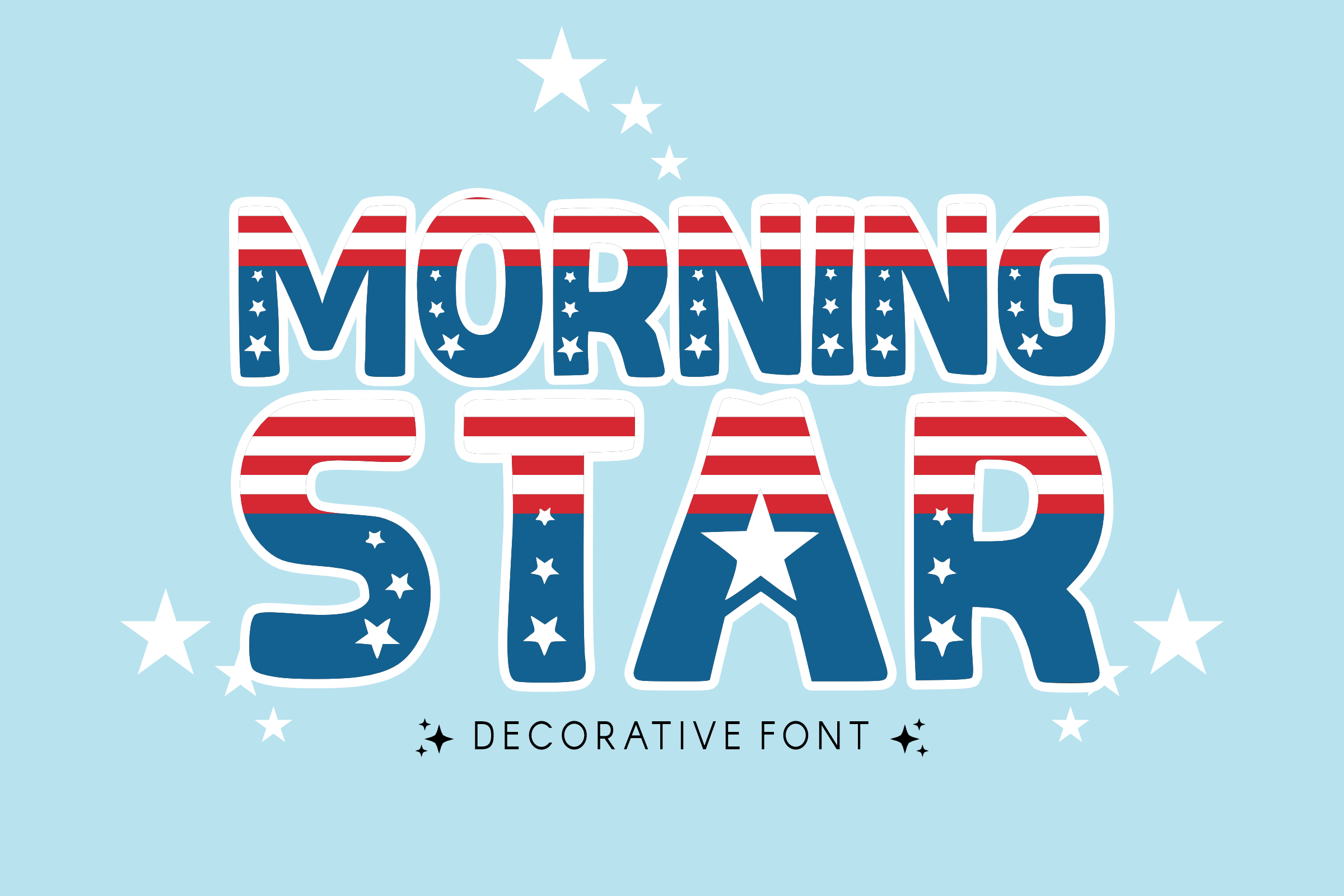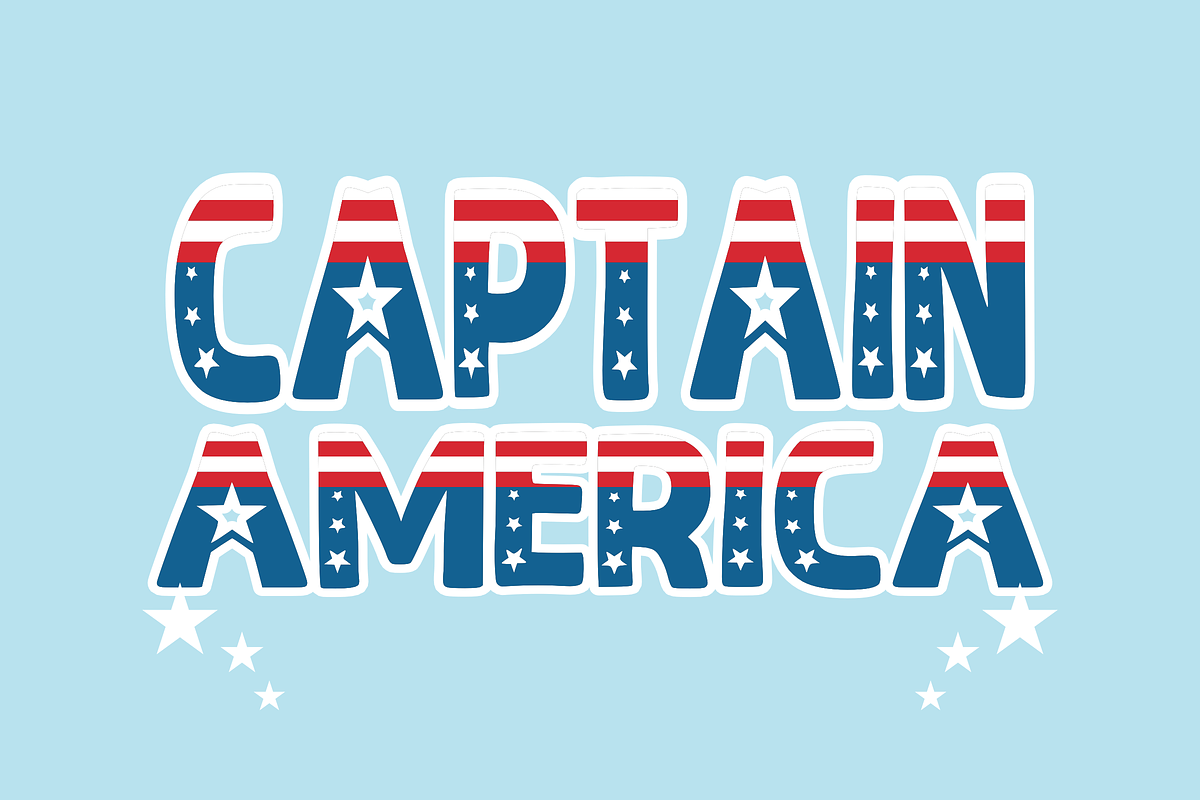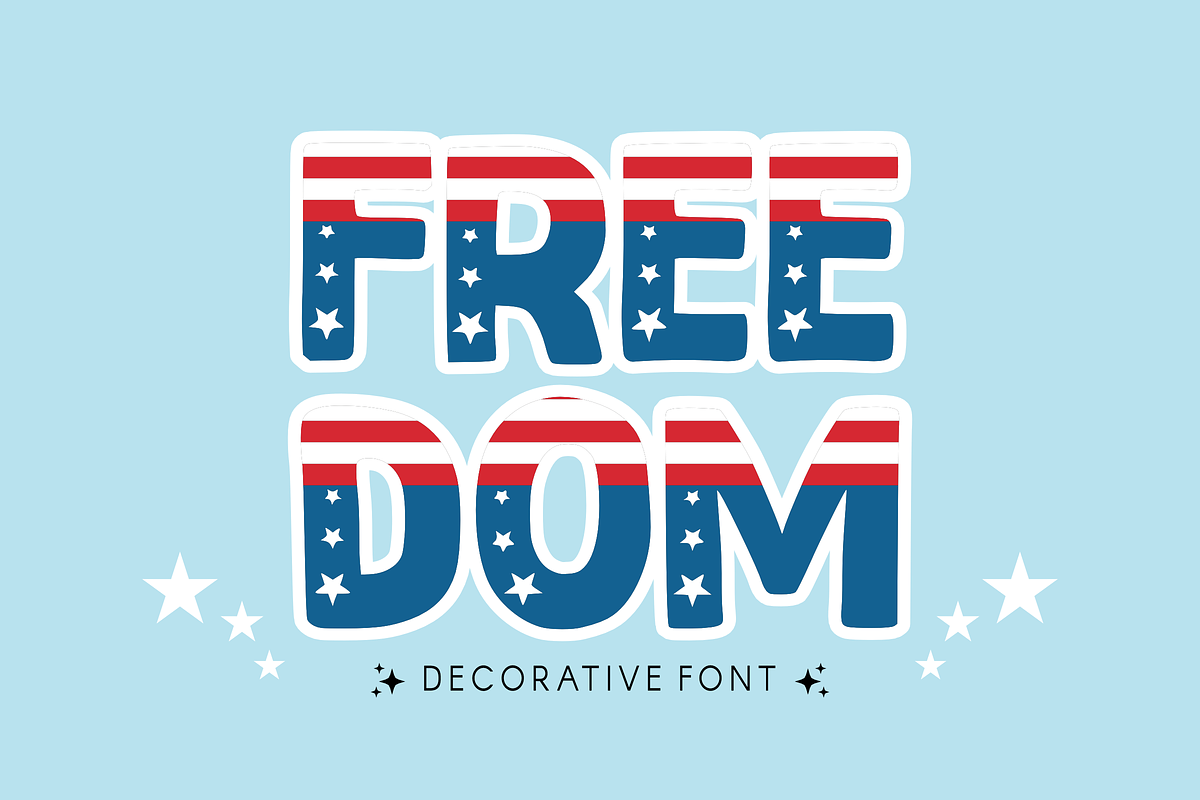
Morning Star - Display Font
⭐ Morning Star - Magical Dotted Display Font ✨ Brighten up your day with Morning Star! This enchanting display font features bold, rounded characters filled with a delightful "twinkling" polka-dot pattern. Designed with a clean "sticker-style" outline and a bouncy personality, it perfectly captures a whimsical, magical vibe that is both friendly and eye-catching.
Whether you're designing for a starry-eyed nursery or a fun school project, Morning Star adds a touch of sparkle to every word!
🌟 Key Features: ✨ Dotted Uppercase: Chunky, bouncy letters with a unique star-like texture.
🔢 Numbers 0-9: Matching patterned numerals for dates and ages.
🎈 Simple Symbols: Essential punctuation to complete your magical designs.
✂️ Sticker Ready: Smooth, high-quality outlines perfect for vinyl cutting and printing.
🎨 Perfect For: 🌙 Nursery & Baby: Bedtime storybooks, name signs, and baby shower invites.
🏫 School Projects: Classroom decor, teacher resources, and school banners.
🧸 Kids Branding: Toy packaging, children's logos, and apparel.
🎂 Celebrations: Birthday invitations, cake toppers, and party banners.
📱 Social Media: Playful YouTube thumbnails and magical Instagram quotes.